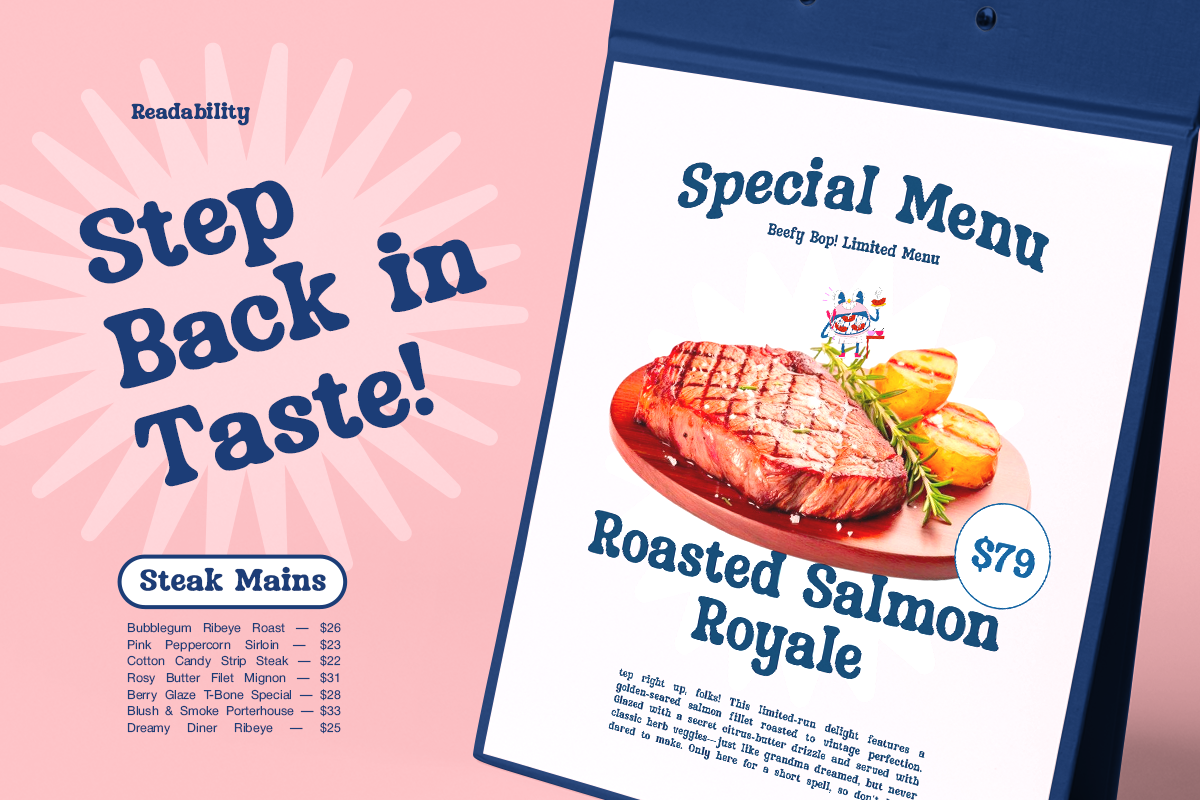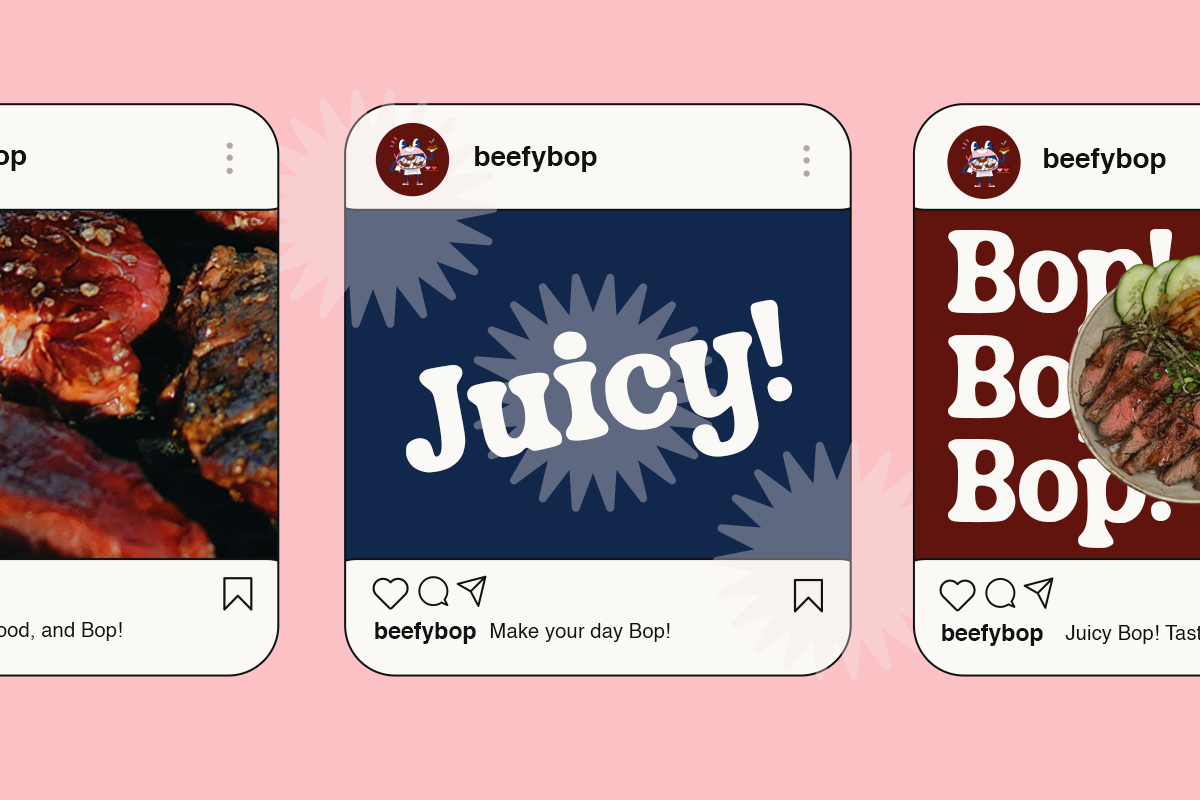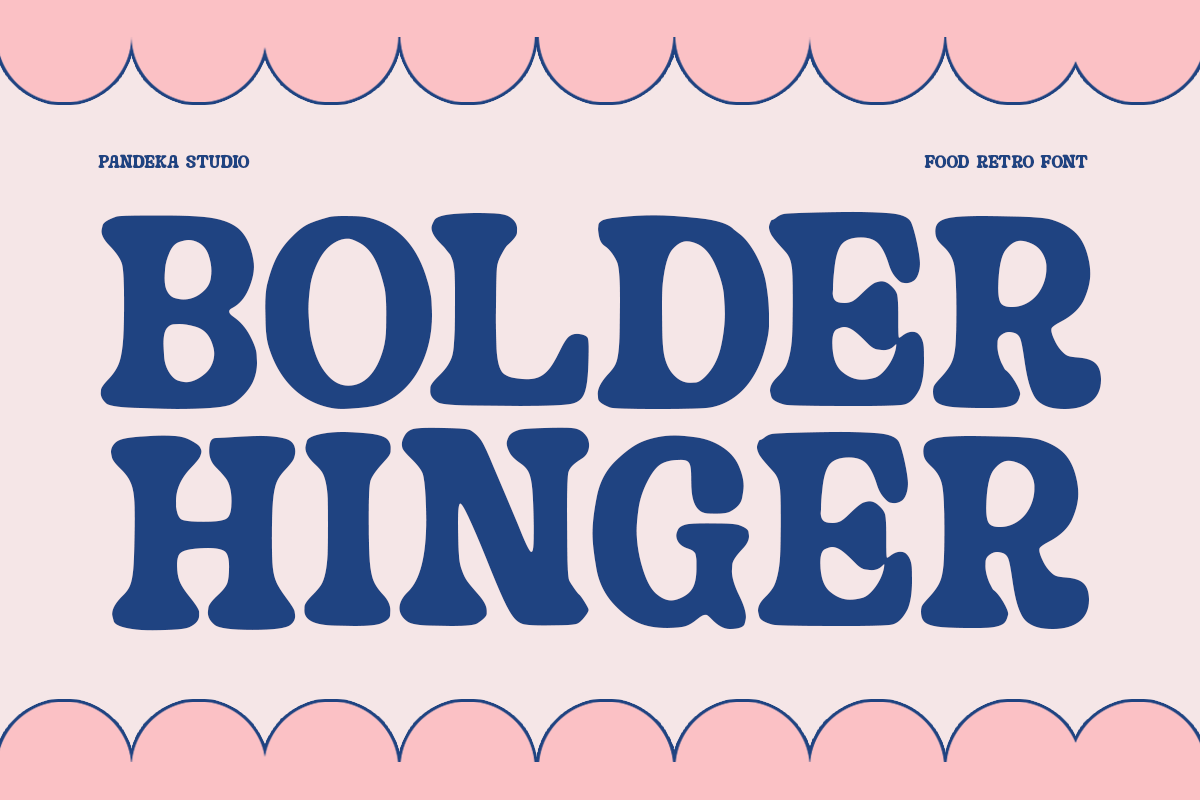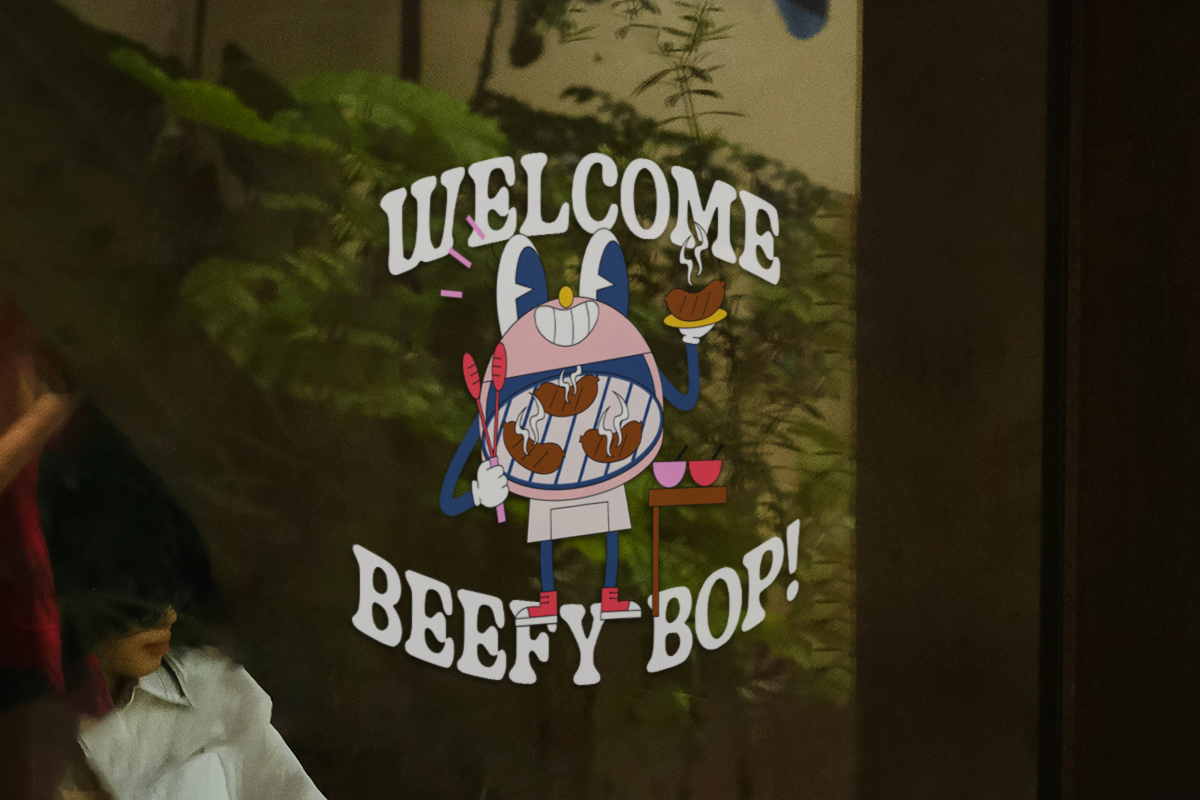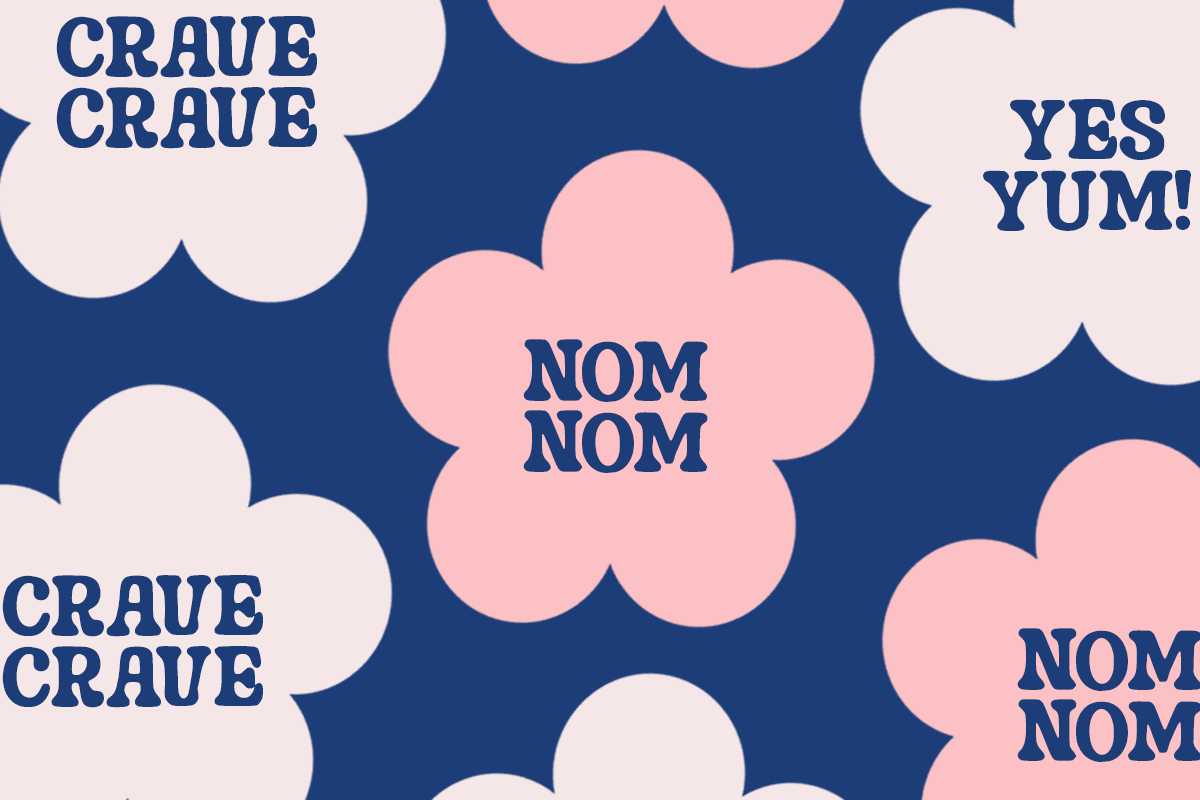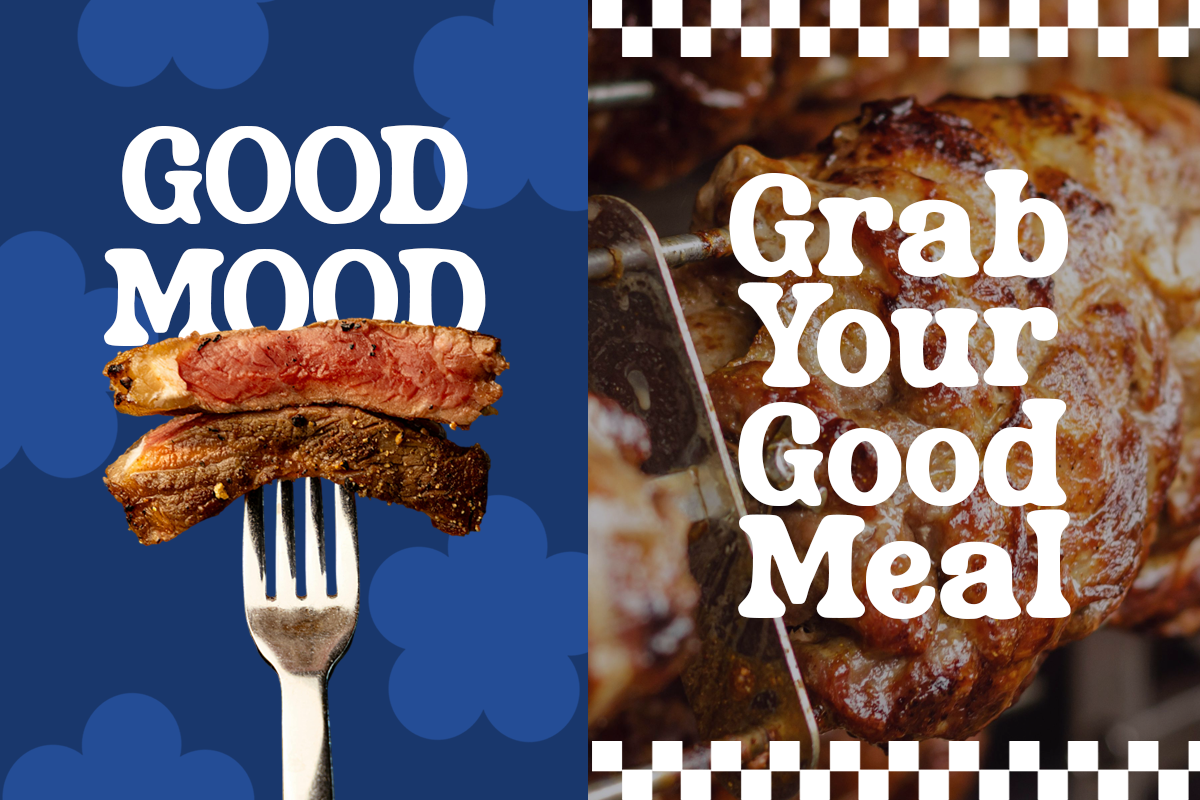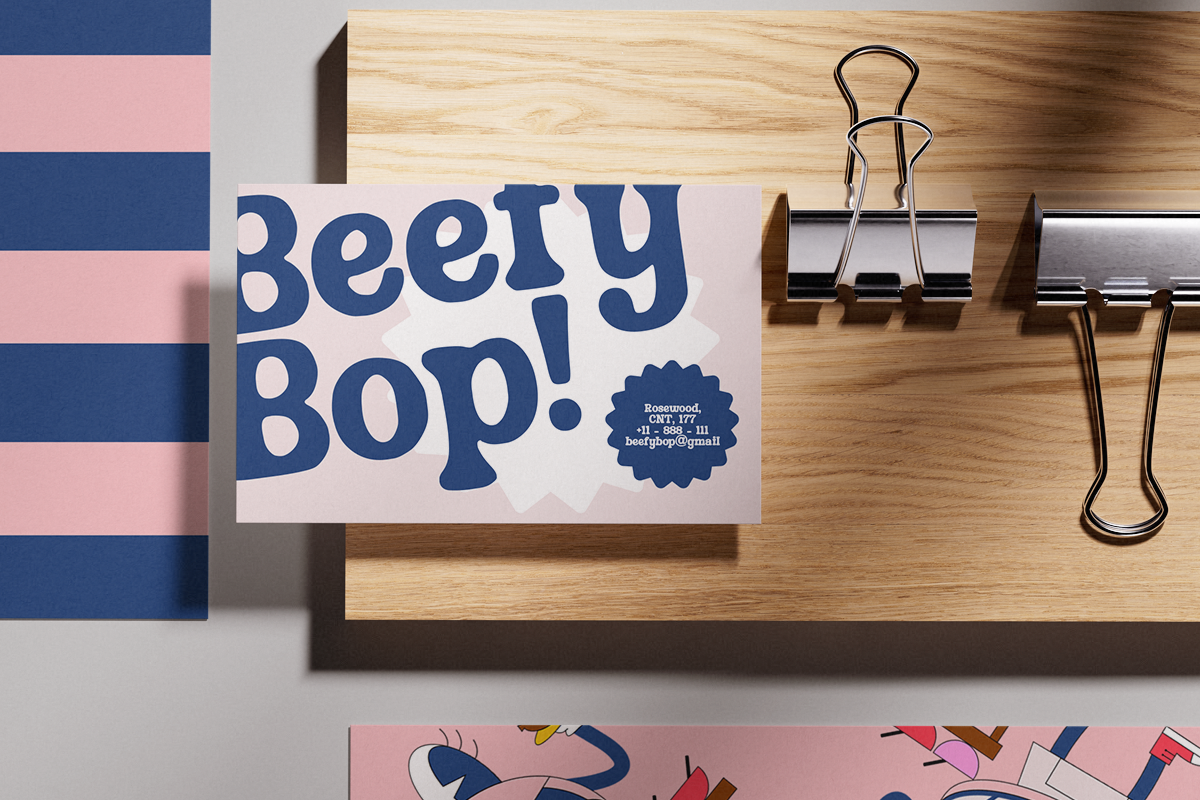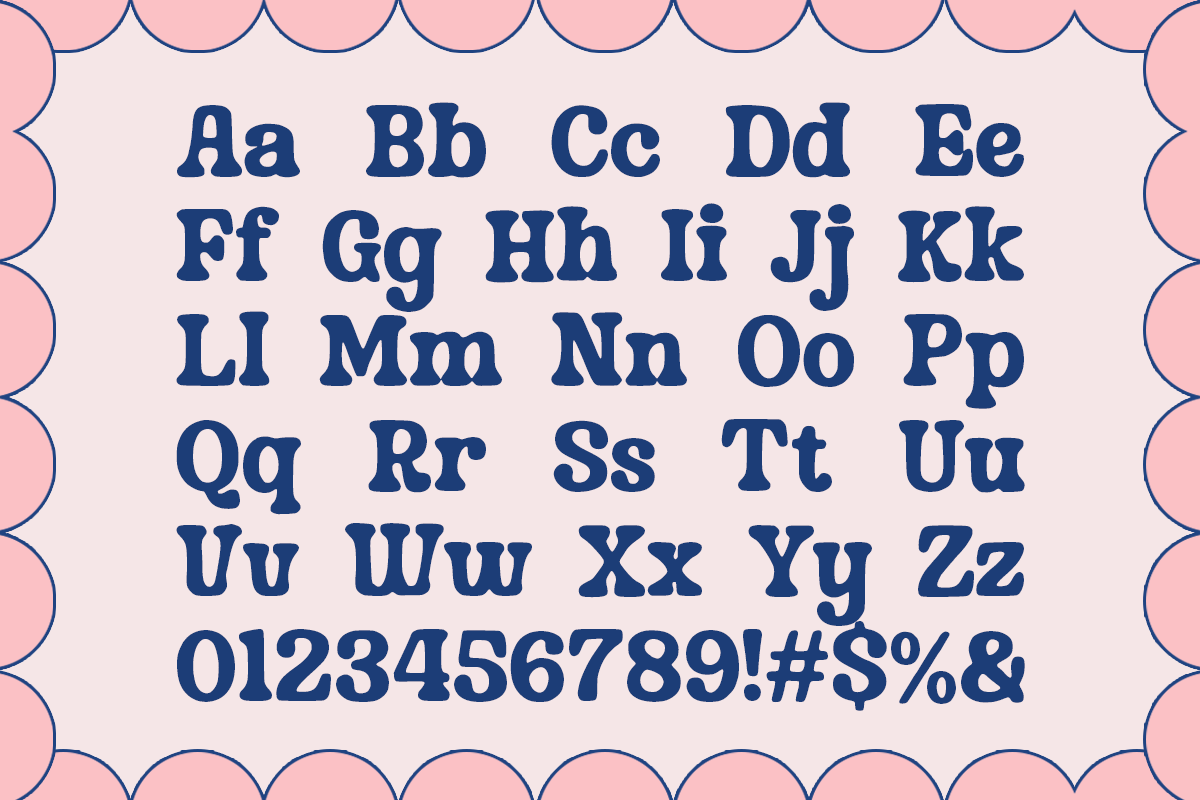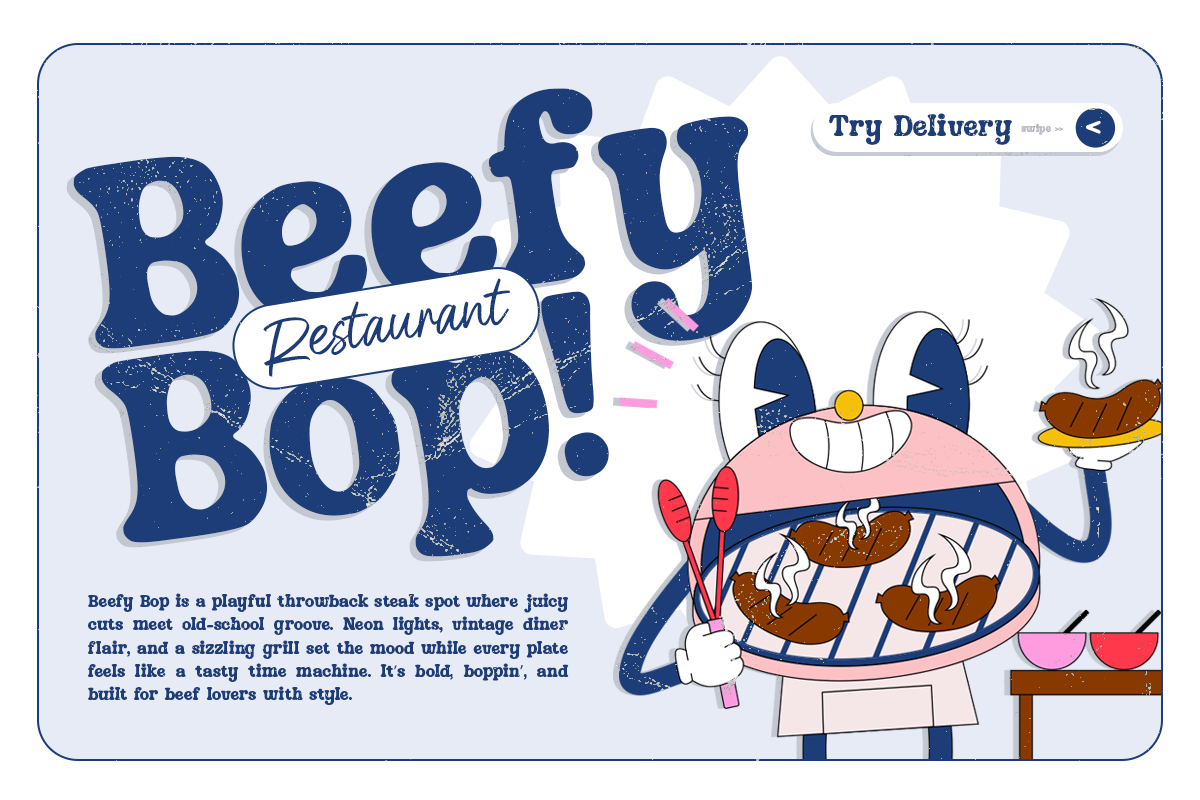
Bolder Hinger - Food Retro Font
Bolder Hinger is a bold and groovy retro font inspired by classic diner signage, vintage packaging, and mid-century restaurant design. With its chunky curves and playful letterforms, this typeface brings a sense of nostalgia and warmth—perfect for food brands that want to look fun, friendly, and full of flavor.
Ideal for restaurant logos, café menus, product packaging, posters, and social media branding, Bolder Hinger captures the essence of good vibes and good taste. Its bold presence and quirky charm make every word feel appetizing and full of energy.
Bolder Hinger comes in one regular style and supports uppercase, lowercase, numbers, punctuation, and multilingual characters, making it a versatile choice for both print and digital designs.
- 1 Style: Regular
- Full Character Set: Uppercase, lowercase, numbers, symbols, and punctuation